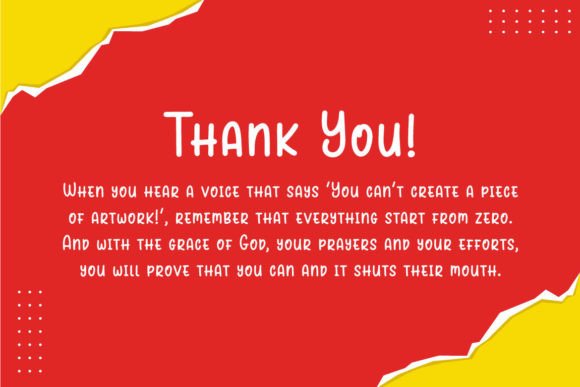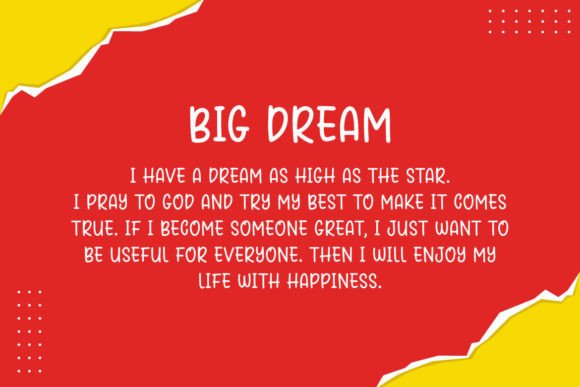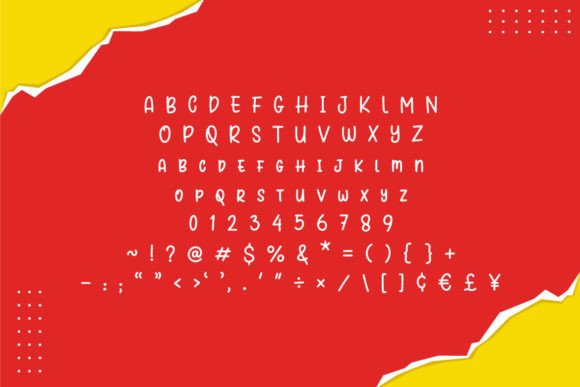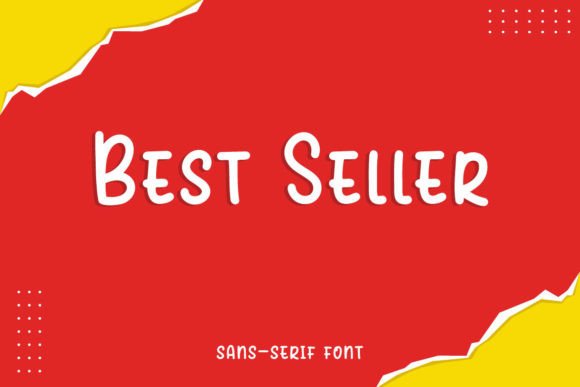
Introducing Best Seller Font: The Modern, Minimalist Handwritten Sans Serif Font
Are you a designer, crafty enthusiast, or entrepreneur looking for a font that can elevate your creative projects? Look no further than Best Seller Font, a modern, minimalist handwritten sans serif font that’s taking the design world by storm. With its clean lines, elegant simplicity, and versatility, Best Seller Font is the perfect addition to your font collection.
What Makes Best Seller Font So Special?
Best Seller Font is a unique blend of modern and minimalist design elements, making it perfect for a wide range of creative projects. Here are some of its standout features:
- Handwritten sans serif: Best Seller Font boasts a handwritten feel without the fuss of traditional serif fonts. Its sans serif design makes it easy to read and perfect for digital and print applications.
- Modern and minimalist: This font’s sleek, modern aesthetic is perfect for designers who want to create clean, sophisticated designs. Its minimalist approach ensures that your message takes center stage.
- Versatile: Best Seller Font is incredibly versatile and can be used for a variety of projects, from branding and advertising to packaging and digital media.
Why Choose Best Seller Font?
With so many fonts available, why choose Best Seller Font? Here are just a few reasons why designers and crafty enthusiasts love this font:
- Elegant simplicity: Best Seller Font’s clean lines and simple design make it easy to pair with other fonts and design elements.
- Easy to read: The font’s clear, legible design ensures that your message is communicated effectively, whether you’re designing for digital or print.
- Unique and creative: Best Seller Font’s handwritten feel and modern aesthetic make it a great choice for designers who want to add a touch of personality to their designs.
How to Use Best Seller Font in Your Creative Projects
Best Seller Font is perfect for a wide range of creative projects, including:
- Branding and advertising: Use Best Seller Font to create eye-catching logos, ads, and marketing materials that showcase your brand’s personality.
- Packaging design: Add a touch of elegance and sophistication to your product packaging with Best Seller Font.
- Digital media: Use Best Seller Font in your digital projects, such as social media graphics, blog posts, and website designs.
- Crafting and DIY projects: Best Seller Font is perfect for crafty enthusiasts who want to add a personal touch to their projects, such as handmade cards, invitations, and scrapbooking.
Tips for Getting the Most Out of Best Seller Font
Here are a few tips for getting the most out of Best Seller Font:
- Experiment with different sizes: Best Seller Font looks great in a variety of sizes, from large headlines to smaller body text.
- Pair with other fonts: Try pairing Best Seller Font with other fonts to create a unique and visually appealing design.
- Use it consistently: Use Best Seller Font consistently across your designs to create a cohesive and recognizable brand identity.
Best Seller Font is a modern, minimalist handwritten sans serif font that’s perfect for designers, crafty enthusiasts, and entrepreneurs who want to elevate their creative projects. With its clean lines, elegant simplicity, and versatility, Best Seller Font is a great addition to any font collection. So why wait? Add Best Seller Font to your creative toolkit today and see the difference it can make!